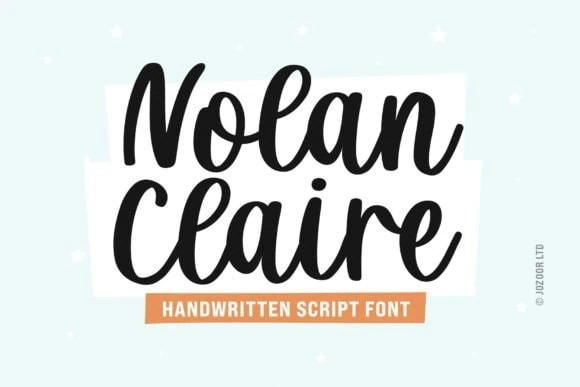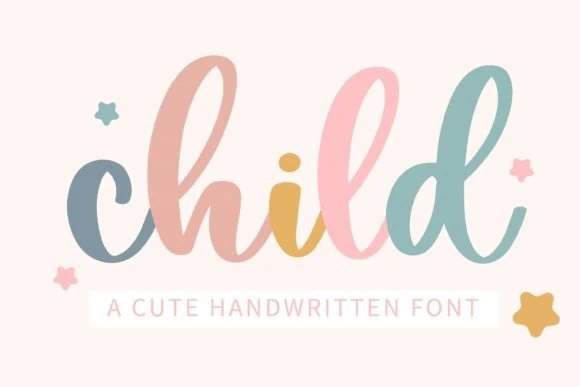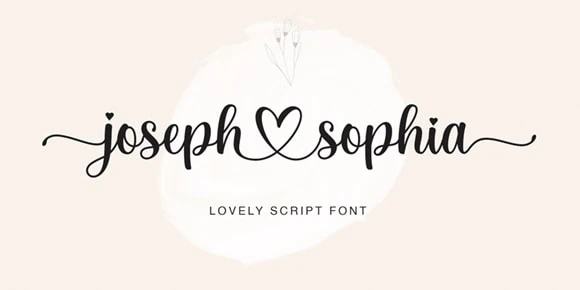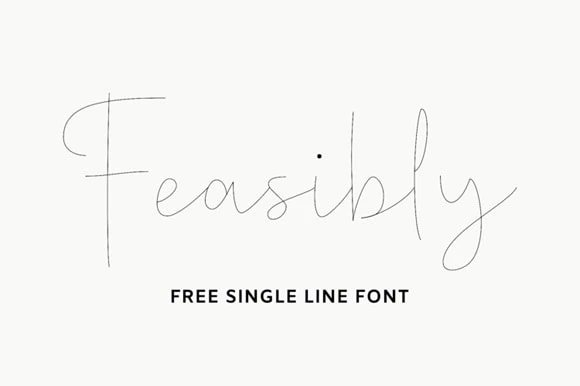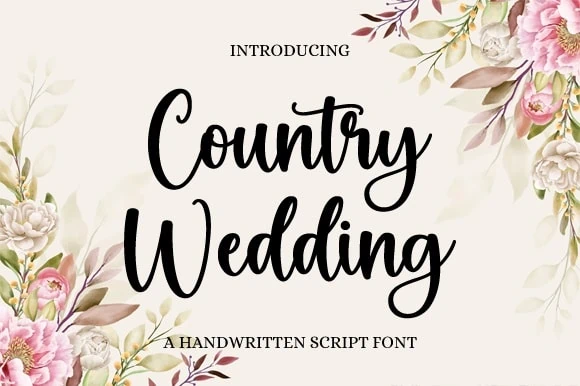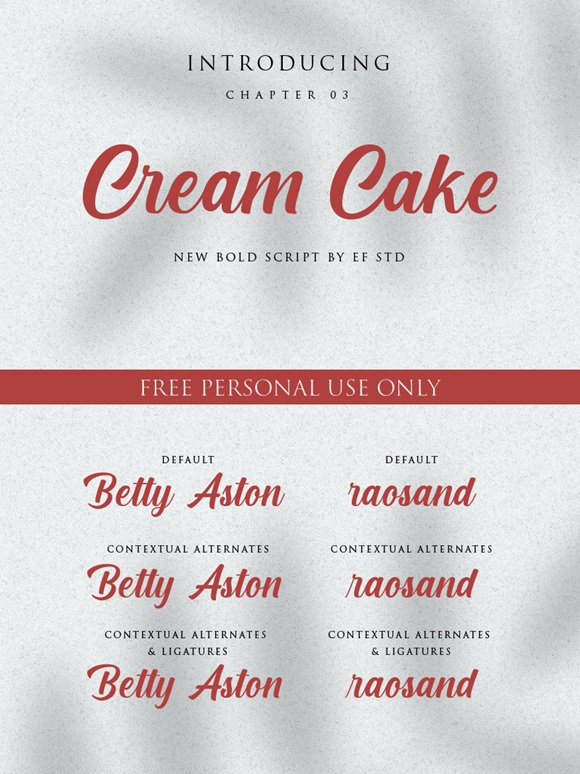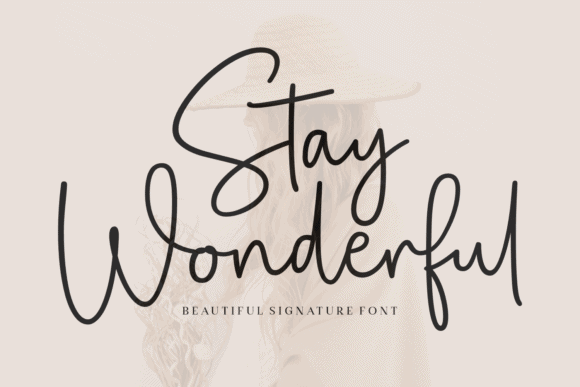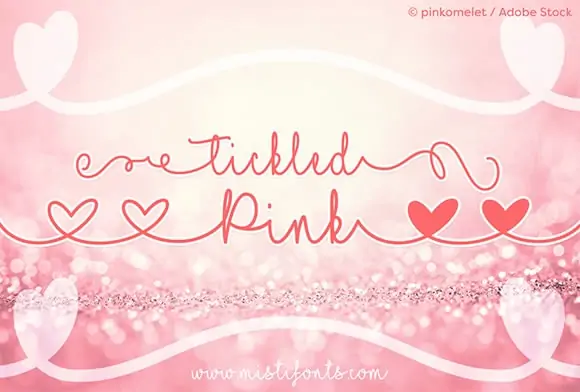
Cursive fonts add a personalized handwritten charm to Cricut crafts. However, selecting the right cursive font is essential. It should be suitable for the type of project and enhance its overall appeal.
Selecting the wrong font can result in unprofessional outcomes and wasted materials, which no crafter wants to experience.
This guide will help you choose the best cursive font for Cricut. From different types of script fonts to the most popular picks, including free options, we’ll cover it all here!
Should you use a writing or cutting font?
The right type of font for your Cricut project depends on the materials, tools, and the look you want to achieve.
Cutting Fonts
If you plan to create vinyl or cardstock projects that involve cutting out letters, it is vital to choose a cutting font.
Cutting fonts are designed to ensure that the letters are cut out precisely, making them ideal for such crafts. Randy Sofia, Hello Honey, and Samantha Calligraphy are a few examples of cutting fonts for Cricut.
Writing Fonts
Writing fonts, also known as single-line fonts, are tailored for projects where you want to use the Cricut pen, engraving tool, or foil quill to create handwritten text.
They are popular for addressing envelopes and cards for weddings and Christmas. Examples of writing fonts include Hello October, More Good Vibes, and Hey Beauty.
The 25 best Cricut cursive fonts for creative designs
As SVG designers and crafters, we have experience creating everything from wedding invitations to vinyl shirts. Over the years, we have tested more than 600 Cricut fonts, including script and cursive fonts. Here are our top picks.
Cricut cursive fonts for cutting
Letโs dive into cursive fonts for cutting that crafters love!
1. Randy Sofia
Randy Sofia is a top choice for Cricut projects due to its adorable lettering style and versatility. Itโs a popular choice among crafters for making vinyl projects, both small and big.
This font features stunning swashes and hearts that can be used to personalize your designs further. It’s perfect for creating a wide range of items, including tumblers, t-shirts, and wedding projects.
2. Samantha Calligraphy
Samantha Calligraphy is a modern cursive font featuring elegant tails. With over 400 alternate characters, this font provides endless customization options.
The heart and swirl features of Samantha Calligraphy are perfect for adding a unique handwritten touch to your designs. It is an ideal choice for various projects, such as signs, cups, and wedding decorations.
3. Hello Honey
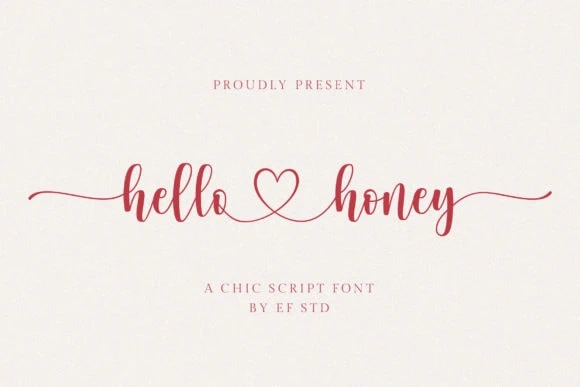
Hello Honey is a popular script font, and it is often used for Cricut crafts. This font, designed by Ef Studio, has connecting hearts and tails that give your designs a romantic charm.
It is best suited for medium and large vinyl projects and is perfect for creating personalized welcome wedding signs with the names of the bride and groom.
4. Mighty Sunday
Bold and modern, Might Sunday is the go-to font for creating eye-catching designs. The font’s thick letters make it especially suitable for cutting small letters.
The font features impressive glyphs and swashes, which make it ideal for designing everything from fun t-shirts to Christmas ornaments.
5. Thick
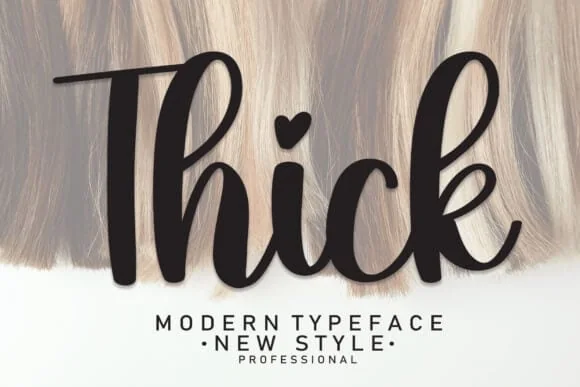
Thick is a stylish cursive font with playful letters and heart doodles. Its calligraphy style features thick lettering, ensuring easy weeding.
From custom t-shirts to keychains and coffee mugs, Thick is the perfect choice for your DIY projects.
Script fonts for Cricut writing
These writing fonts are the go-to choices for Cricut pen projects.
6. Hello October
Hello October is a beautiful handwritten font designed by Subectype. The font’s single-line version is perfect for all your sketch pen and foil quill crafts.
Whether you’re addressing envelopes or creating wedding invitations, Hello October makes it easy to bring your creative ideas to life. It’s an elegant and charming font that will add a unique touch to your projects.
7. More Good Vibes Duo
More Good Vibes is a cute font duo for your Cricut writing projects. The script is single-line, and it comes with a matching handwritten sans.
Use the script for names and the sans for short messages on gift tags, stickers, and greeting cards.
8. Always Loving
Always Loving is a connected calligraphy font adorned with beautiful hearts and elegant tails. Itโs perfect for making everything wedding-related, including invitations, save-the-date cards, and envelope addressing.
Final Thoughts
Cursive and script fonts are the most popular fonts used in Cricut projects.
By exploring different cursive fonts, weโve uncovered a treasure trove of options suited for various projects, from wedding invitations to t-shirts.
We also learned about cutting and writing fonts, particularly where and how to use them. This is important for crafters to know, as they can help you get flawless results and avoid wasting material.